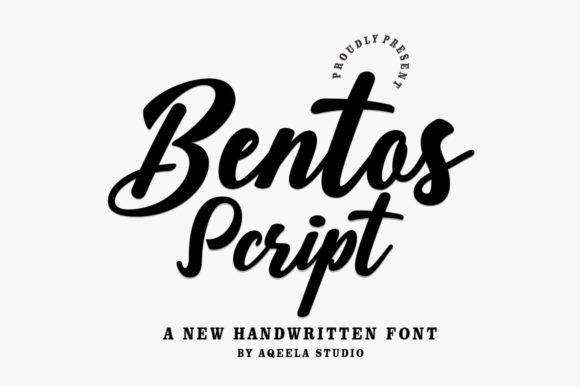
Bentos Script Font: The Key to Unlocking Your Design Dreams
Step into the world of Bentos Script Font, a breathtaking handwritten script that will transform your designs into captivating masterpieces. This exquisite font, crafted by the talented Aqeela Studio, is not just a collection of characters; it's an invitation to let your creativity soar.
With its elegant curves and bold strokes, Bentos Script Font adds a touch of sophistication and charm to any project. The carefully crafted OpenType features, such as stylistic alternates, contextual alternates, and ligatures, provide endless possibilities for customization, allowing you to create designs that are truly unique and memorable.
Picture your designs adorned with the beautiful letters of Bentos Script Font. Imagine your logos, letterhead, apparel, labels, and headlines standing out from the crowd, captivating your audience with their elegance and allure. This versatile font is perfect for adding a personal touch to your branding, creating heartfelt invitations, or designing eye-catching social media graphics.
Bentos Script Font is not just a font; it's an experience. It's the perfect tool for expressing your creativity, adding a touch of whimsy to your projects, and leaving a lasting impression on your audience. Join the countless designers who have embraced the beauty of Bentos Script Font and unlock a world of design possibilities.